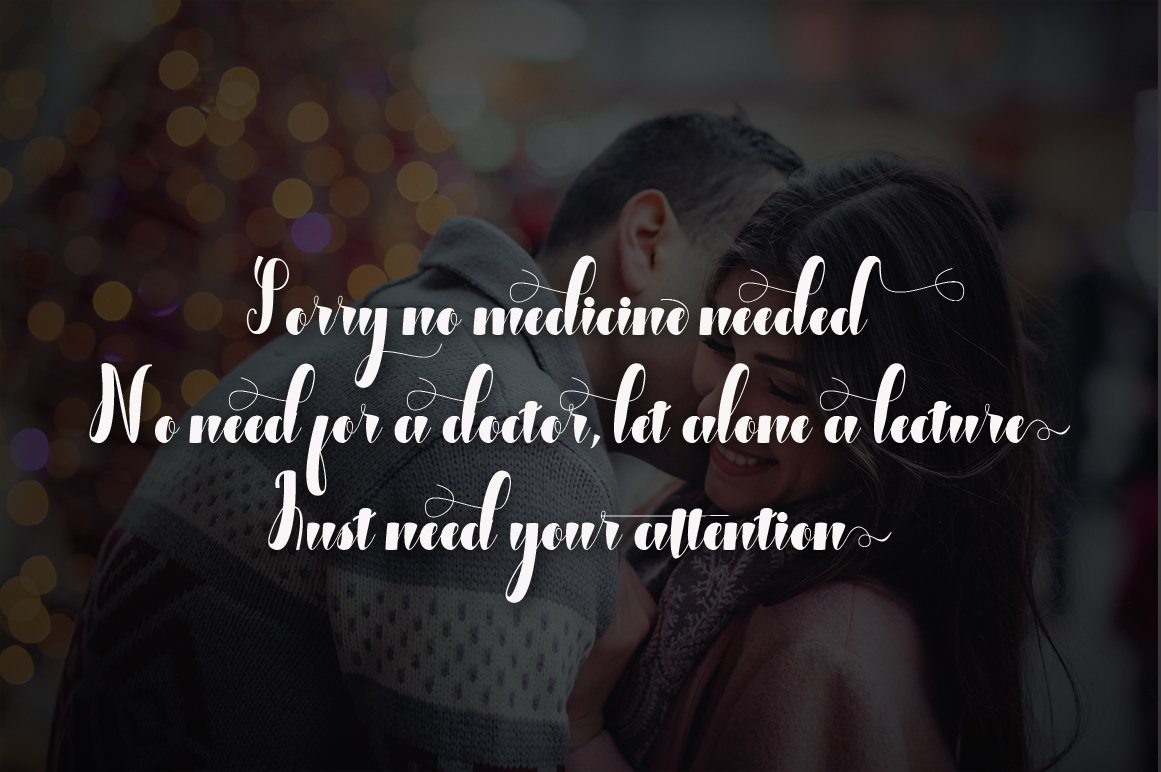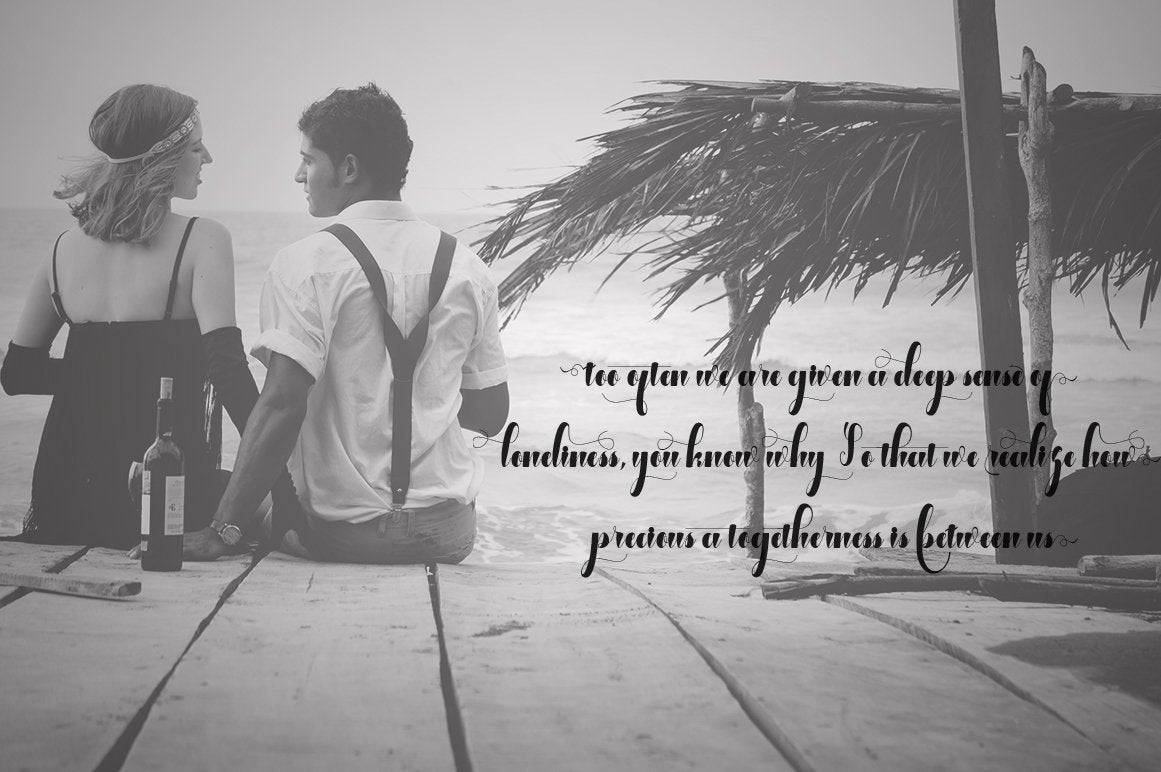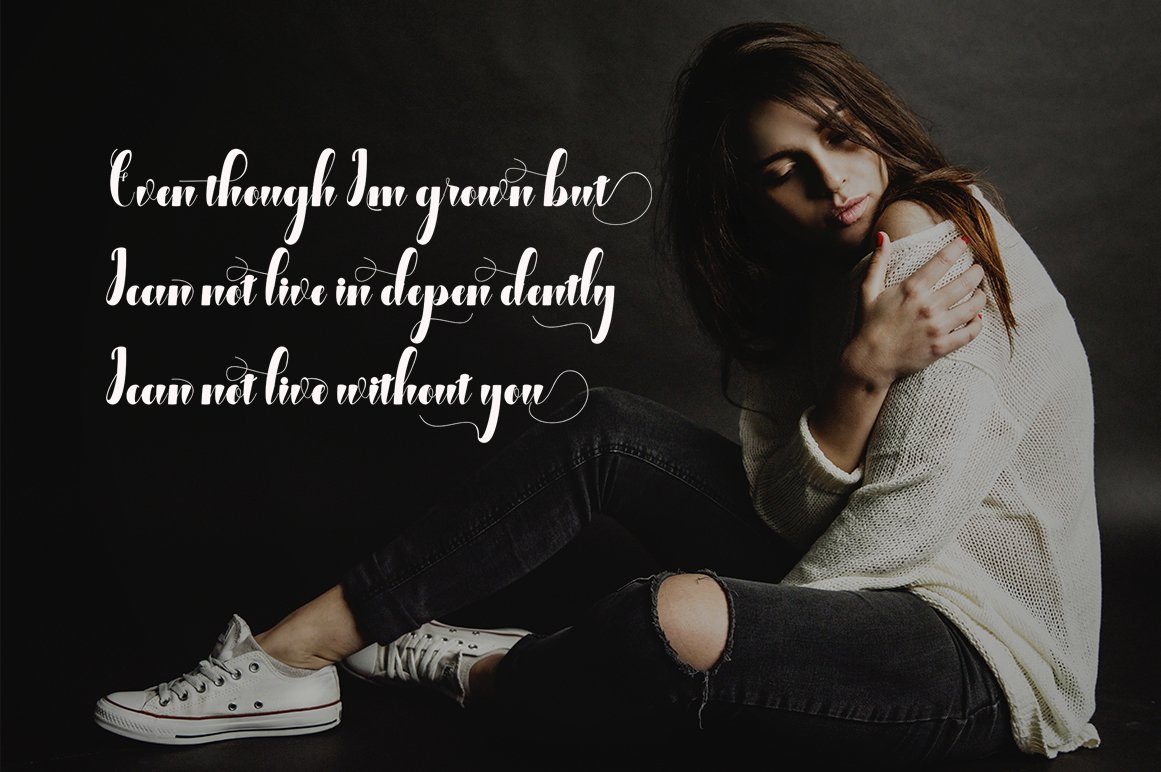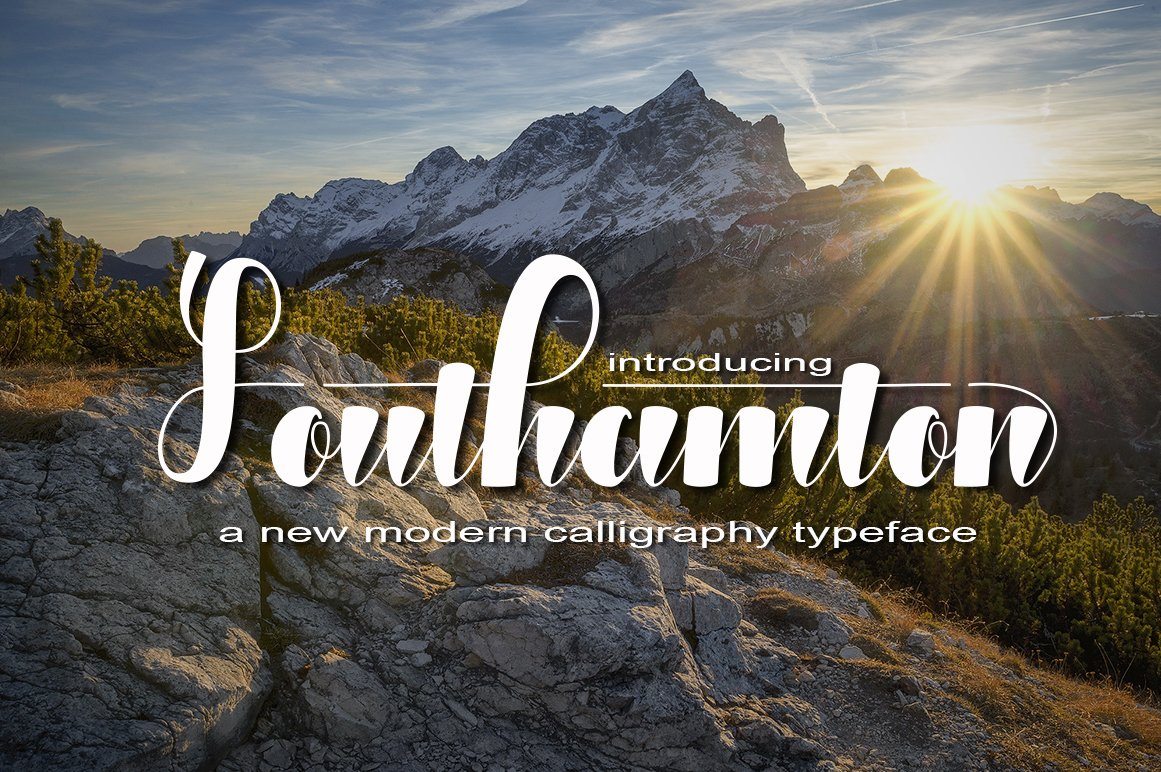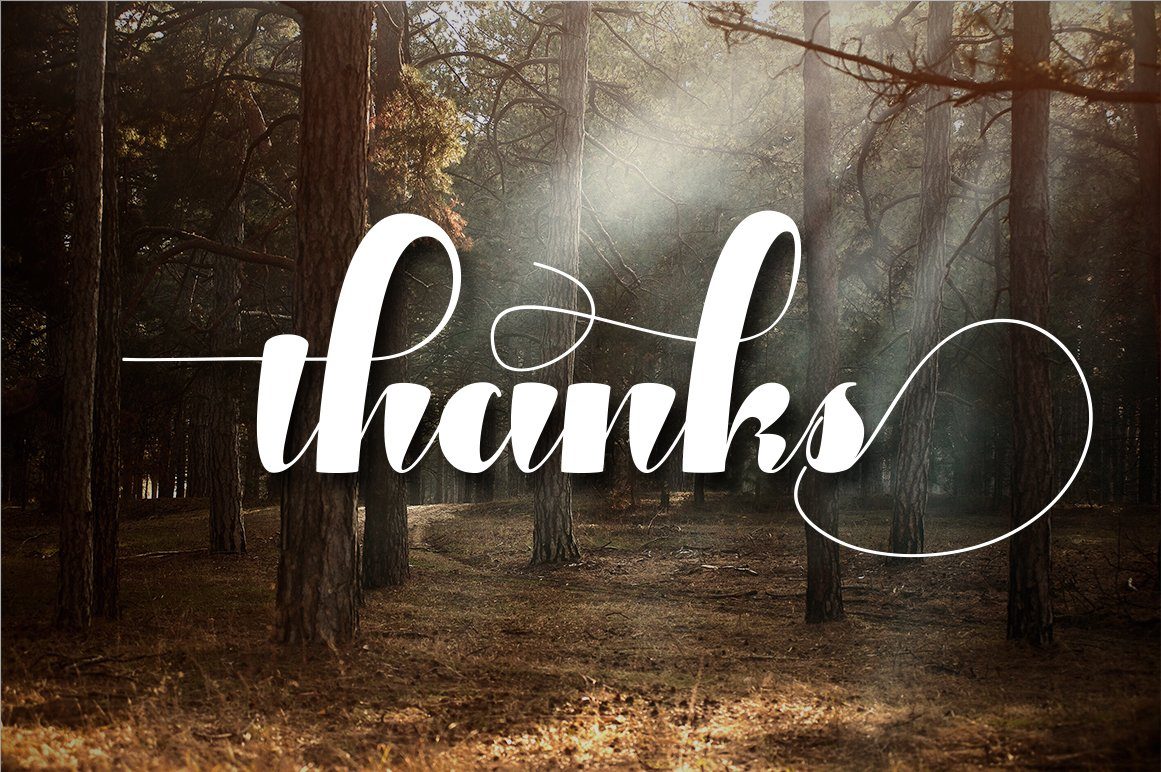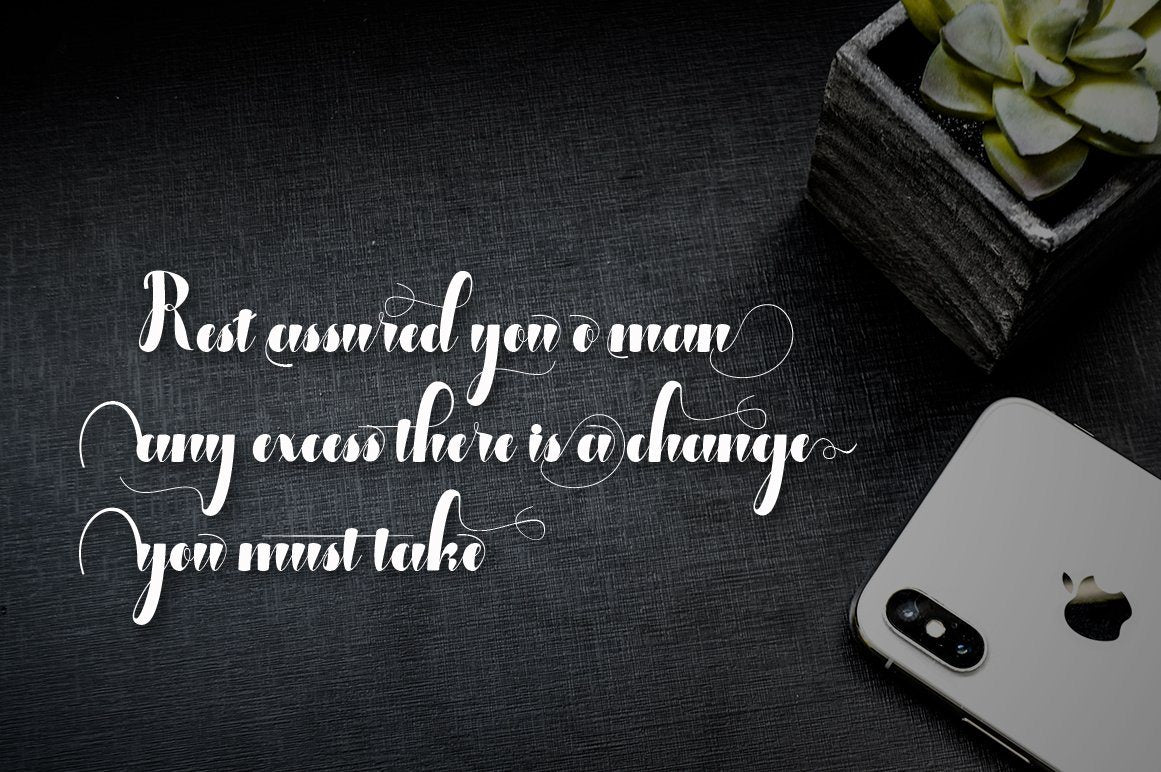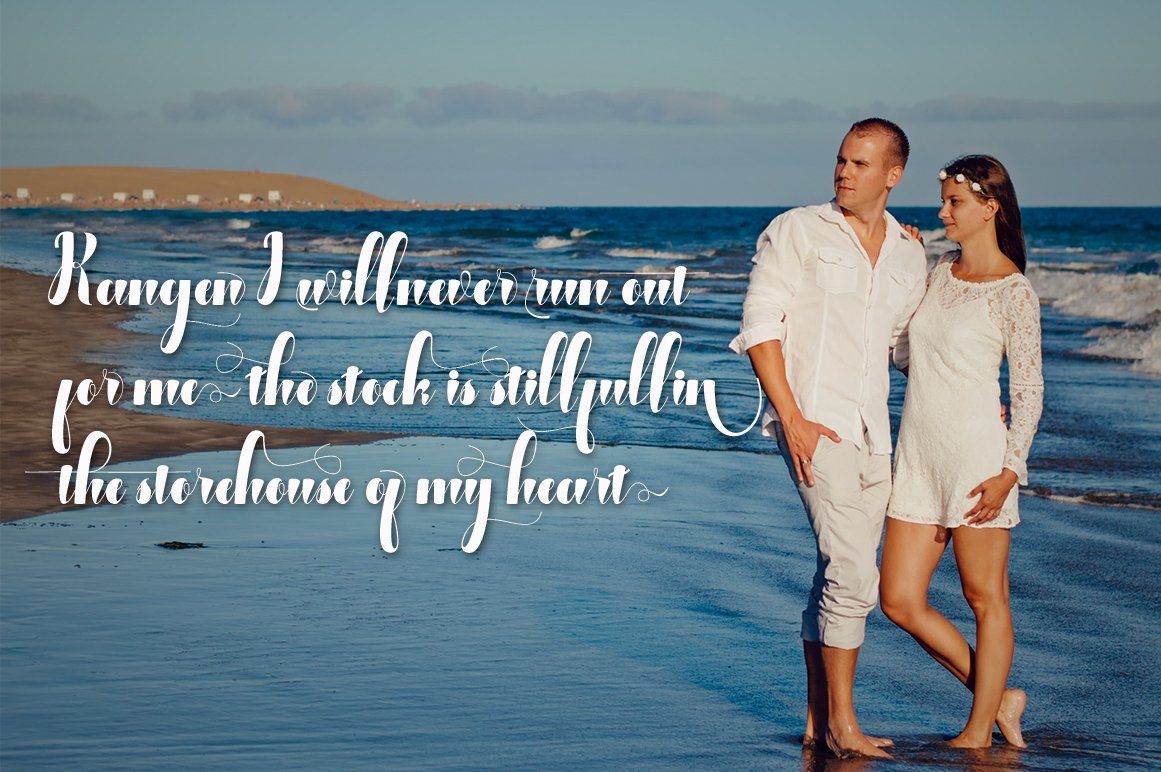
southamton
INTRODUCING Southamton Modern Calligraphy. This font was designed by handwriting, and it has a modern and unique forms of calligraphy, the writing style is very natural. Southamton has a very unique style of calligraphy, it is very suitable for use in the work of modern design. The Features of this fonts is: Standart ligatures Stylistic Alternates PUA Unicode (Private Use Areas) File font Include: Southamton TTF Southamton OTF Can be used for various purposes.such as headings, logos, wedding invitation, t-shirt, letterhead, lable, news, posters, badges etc. To enable the OpenType Stylistic alternates, you need a program that supports OpenType features such as Adobe Illustrator CS, Adobe Indesign & CorelDraw X6-X7.a font that made the hand by having the character up and down like a dancer. shintia has a very unique style of calligraphy, it is very suitable for use in the work of modern design. INTRODUCING Southamton Modern Calligraphy. This font was designed by handwriting, and it has a modern and unique forms of calligraphy, the writing style is very natural. Southamton has a very unique style of calligraphy, it is very suitable for use in the work of modern design. The Features of this fonts is: Standart ligatures Stylistic Alternates PUA Unicode (Private Use Areas) Can be used for various purposes.such as headings, logos, wedding invitation, t-shirt, letterhead, lable, news, posters, badges etc. To enable the OpenType Stylistic alternates, you need a program that supports OpenType features such as Adobe Illustrator CS, Adobe Indesign & CorelDraw X6-X7.a font that made the hand by having the character up and down like a dancer. shintia has a very unique style of calligraphy, it is very suitable for use in the work of modern design. Southamton Modern Calligraphy. This font was designed by handwriting, and it has a modern and unique forms of calligraphy, the writing style is very natural. Southamton has a very unique style of calligraphy, it is very suitable for use in the work of modern design.